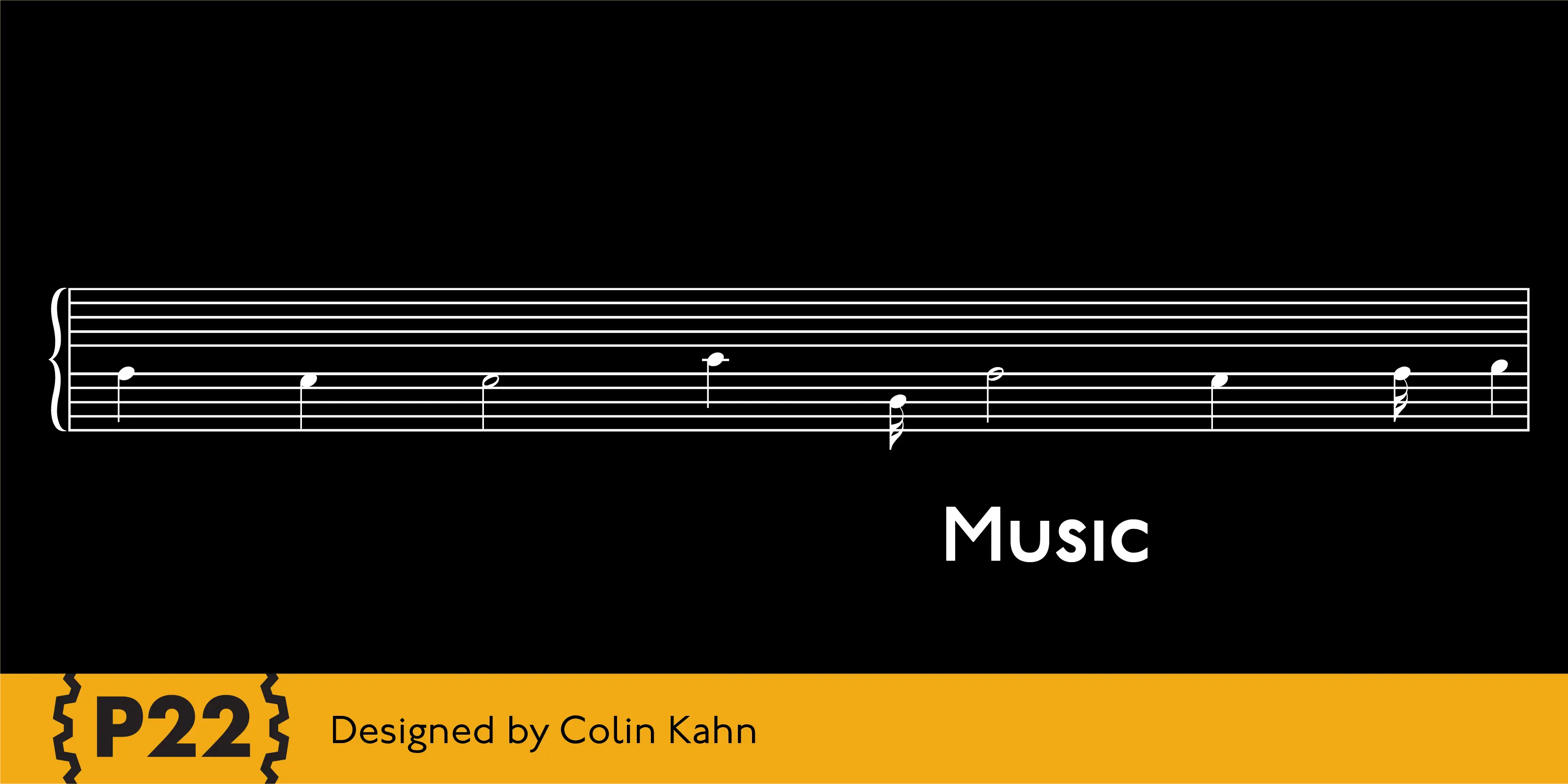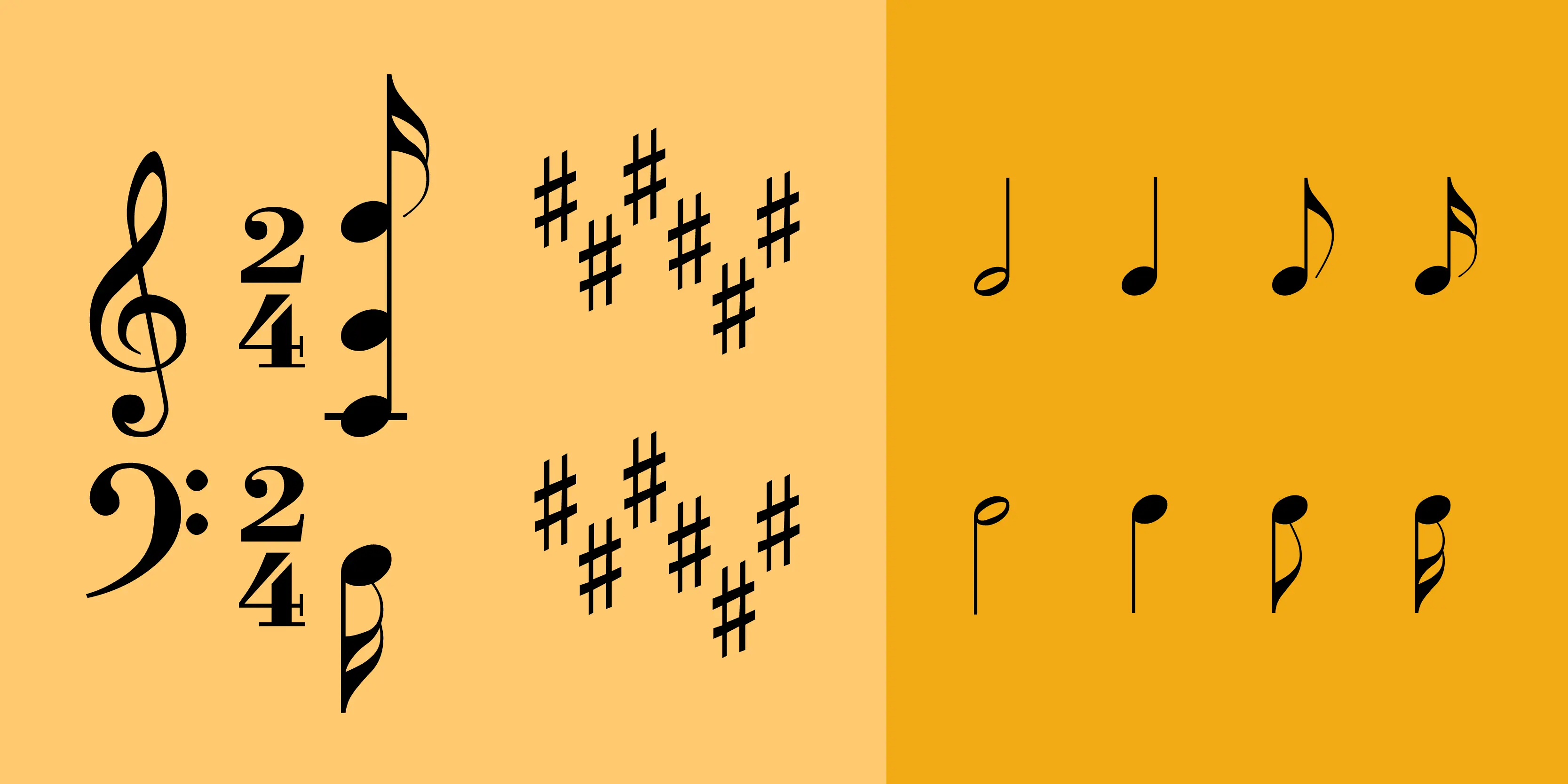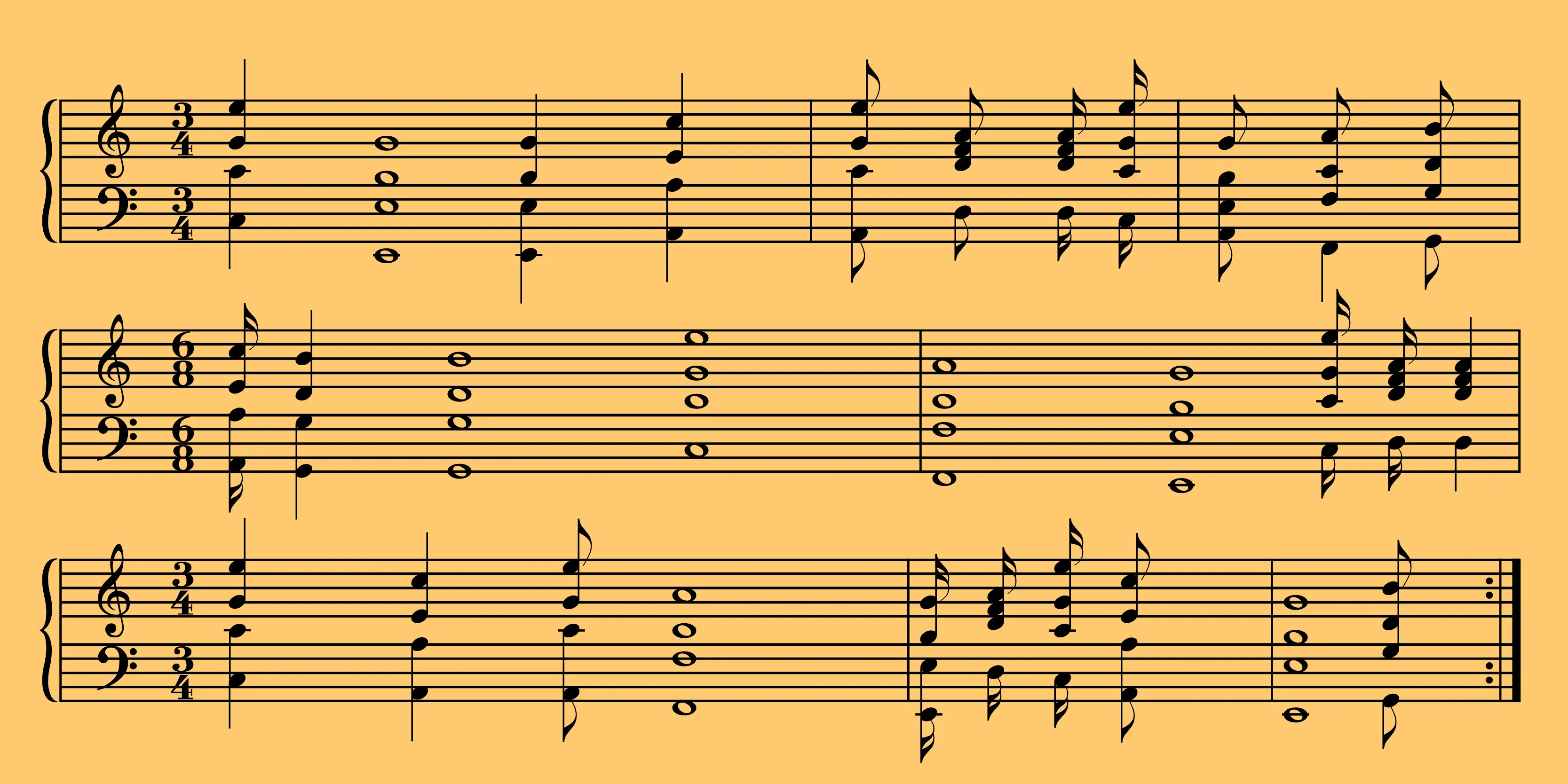
Music
P22 Music Pro is a unique font system that allows the user to compose music with text editing and page layout programs capable of OpenType features and contextual substitutions. The OpenType features speed up the composing process by adding chords, contextual accidentals (sharps and flats), contextual key signatures and time signatures. P22 Music Pro covers a wide range of symbols and notation used in traditional western music composition. The font also expands on the concept used in the Music Text Composition Generator, an online application that imposes a series of substitutions on the users text to yield an unexpected composition. The Music Pro font is able to perform these same substitutes within your OpenType layout program, as well as adding word-to-chord substitutions. P22 Music Pro requires an application that uses OpenType features and is capable of contextual substitutions, such as Adobe InDesign or Illustrator. P22 Music is the companion, non-pro font and is sold separately. P22 Music also contains music symbols and notation and is suited for layout and text edit applications such as Microsoft Word that do not support Pro OpenType features. Unlike the P22 Music Pro font, the music symbols in the non-pro font are not tied to the staff lines, making them more useful for general design purposes. Staff lines are included as a separate character.